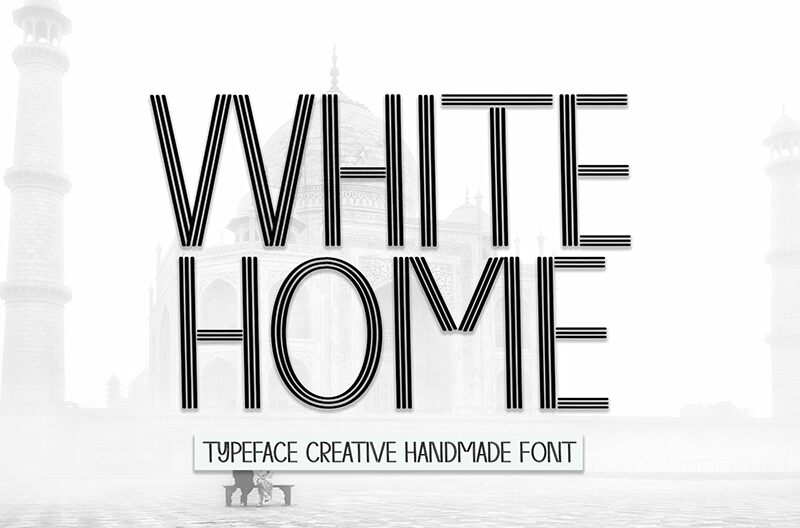
White Home
White Home font by Andi Moz is a geometric display font with art deco influences. Its structured appearance is a result of ornamental lines and geometric shapes. As it takes users back to the sophistication of the 1920s and 1930s, it paves way for vintage designs. All things considered, it has a sophisticated yet elegant aesthetic.
This free display font fits into a variety of projects that can take full advantage of its style. Use White Home in logos, magazine covers, product packaging, labels on luxury goods or even restaurant menus. Go for custom branding designs for fashion labels or invitations to special events such as weddings or parties.